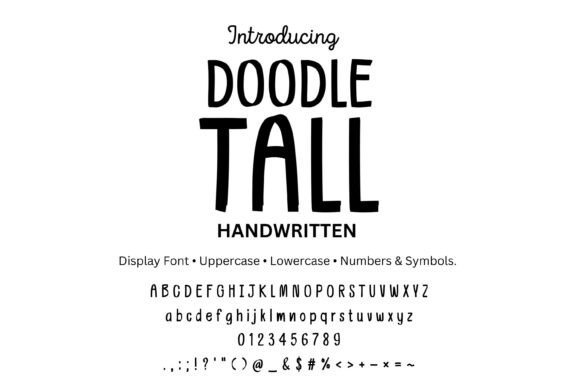
The Joy of Handwritten Fonts: Introducing Doodletall Font
Have you ever been working on a creative project, and the perfect font just eludes you? Maybe it’s a birthday invitation for your little one, a poster for a classroom decoration, or a label for your homemade treats. I’ve been there too, and that’s why I’m excited to introduce you to Doodletall Font – a tall, skinny handwritten display font that’s sure to bring a smile to your face.
Doodletall Font is a versatile and playful font that’s perfect for kids’ projects, stickers, logos, and even Cricut/Silhouette crafts. Its clean doodle vibe makes it highly legible at small sizes, and its compatibility with a range of design tools, including Adobe and Canva, makes it a valuable addition to any designer’s toolkit.
Doodletall Font Key Features
- Font Family: Doodletall is a unique, hand-drawn font designed for creative and artistic purposes.
- Unique Characteristics: Features a playful, whimsical design with irregular shapes and lines, making it ideal for adding a touch of personality to designs.
Doodletall Font Review
I recently had the chance to work with the Doodletall Font, and I’m excited to share my thoughts with you. Overall, I think this font has some amazing qualities that make it perfect for certain projects, but it’s not without its limitations.
- The whimsical, hand-drawn feel of the font is perfect for adding a touch of personality to a design.
- The font is highly legible, even at smaller sizes, making it a great choice for body text or captions.
- The font’s versatility makes it suitable for a wide range of design projects, from branding to editorial content.
- The font’s inconsistencies in line weight and spacing can make it difficult to use for more formal or professional designs.
- The font’s lack of italics and bold weights can be limiting for designers who need to create emphasis or hierarchy in their designs.
Overall, I think the Doodletall Font is a great choice for designers who want to add a touch of playfulness and personality to their projects. While it may not be suitable for every design, it’s definitely worth considering for the right project.
The Doodletall font is ideal for creative projects, such as:
– Children’s books and educational materials
– Artistic posters and flyers
– Social media graphics and ads
– Personalized stationery and invitations
Alternatives to Doodletall Font
Great Vibes is a modern, elegant script font that is perfect for creating a sophisticated and luxurious feel. It is ideal for use in branding, advertising, and packaging design. Compared to Doodletall Font, Great Vibes has a more refined and polished look, making it suitable for high-end designs.
Comparison to Doodletall Font: While Doodletall Font has a playful and whimsical feel, Great Vibes Font is more elegant and sophisticated. Great Vibes Font is better suited for designs that require a touch of luxury and refinement.
Carolyna Pro is a beautiful, modern script font that is perfect for creating a romantic and elegant feel. It is ideal for use in wedding invitations, branding, and advertising design. Compared to Doodletall Font, Carolyna Pro has a more flowing and organic look, making it suitable for designs that require a touch of whimsy and romance.
Comparison to Doodletall Font: While Doodletall Font has a playful and quirky feel, Carolyna Pro Font is more elegant and sophisticated. Carolyna Pro Font is better suited for designs that require a touch of romance and whimsy.